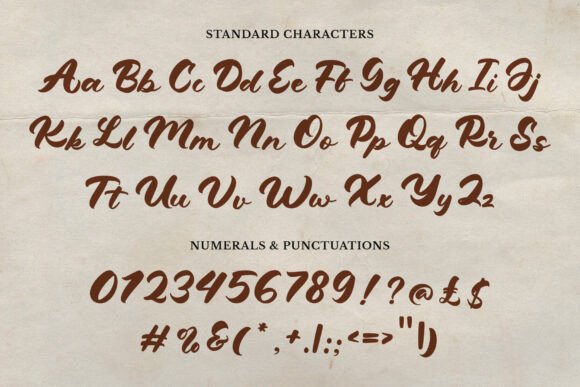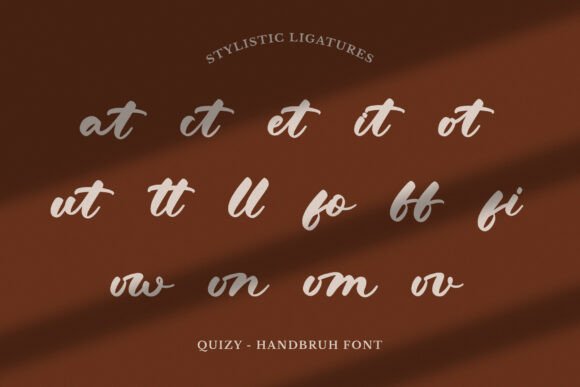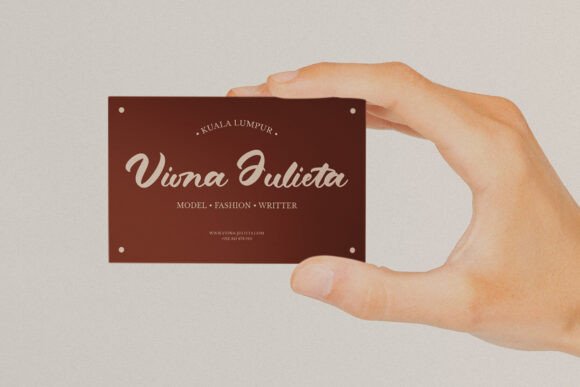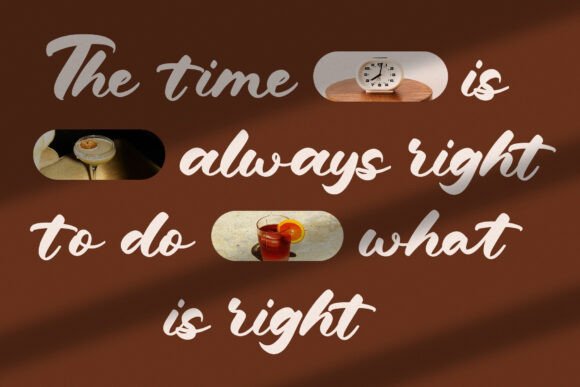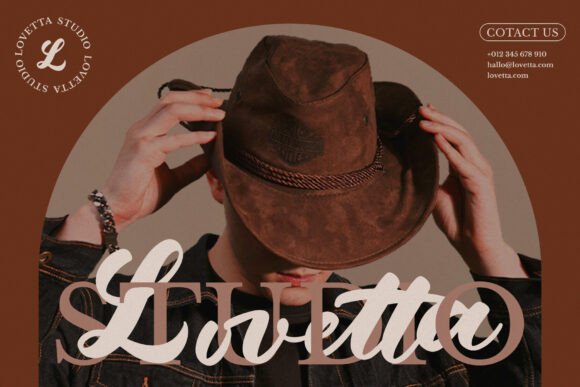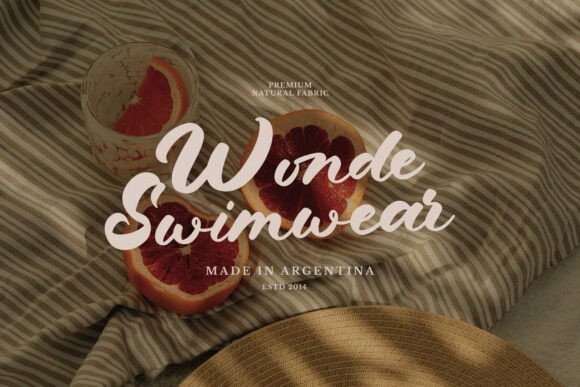
Introduction to Quizy Font
Have you ever been working on a creative project and struggled to find the perfect font to bring it to life? I know I have! It’s like searching for a needle in a haystack, but with letters instead. That’s why I’m so excited to share with you the amazing Quizy Font, a high-quality, handwritten font that’s sure to become your new favorite design resource.
With its classy calligraphic influences and modern feel, the Quizy Font is the perfect addition to any creative project. Whether you’re designing a logo, a wedding invitation, or a social media graphic, this font is sure to elevate your design to the next level. And the best part? It’s available for free download, complete with a transparent background for easy use.
Key Features of Quizy Font
- High-quality design with a transparent background, ideal for creative projects and presentations.
- Quizy Font is available in 5 unique styles, each with its own distinct character, allowing for versatility in creative projects.
- Each style is available in 4 different font sizes, ranging from 24pt to 48pt, providing flexibility for use in various design contexts.
- Designed at 300 DPI resolution, ensuring crisp and clear display on high-resolution screens.
- Perfect for use in logos, titles, headings, and other design elements where a unique and eye-catching font is required.
Honest Review: Quizy Font
I recently had the chance to work with Quizy Font, and I must say it’s a great addition to any design project. One of the things that stands out about this font is its high quality and unique style, making it perfect for creative projects that require a bit of personality.
- High-quality and unique style ✨
- May not be suitable for formal or traditional designs ⚠️
- Limited character set, may not be as versatile as other fonts
Overall, I’m really impressed with Quizy Font. It’s a great design resource that’s perfect for creative projects that require a bit of flair. While it may not be suitable for every design project, it’s definitely worth checking out if you’re looking for a unique and high-quality font.
How to Use Quizy Font
Designing with Quizy Font
Quizy Font is a high-quality, free design resource perfect for adding a creative touch to your projects. With its transparent background, you can easily layer it over any image or background, making it an ideal choice for designers.
Tips for Getting the Most Out of Quizy Font
To get the most out of Quizy Font, experiment with different font sizes, colors, and styles to create visually appealing designs. You can also combine it with other design elements, such as graphics and images, to add depth and interest to your project.
Quizy Font is commonly used in a variety of creative projects, including social media graphics, presentations, and infographics. Its high-quality design and transparent background make it an ideal choice for designers looking to add a professional touch to their work.
Comic Sans MS compares to Quizy Font in that it has a similar informal feel, but with a more rounded and cursive aesthetic. However, it lacks the high quality and transparent background of Quizy Font.